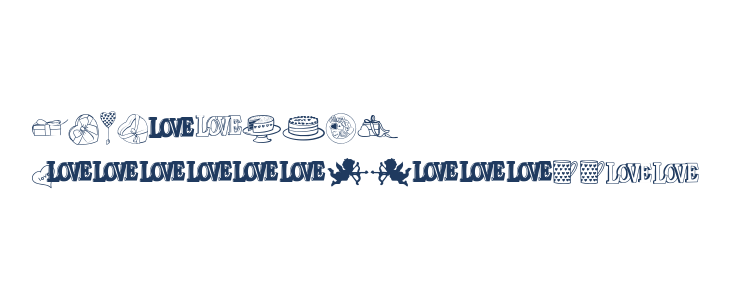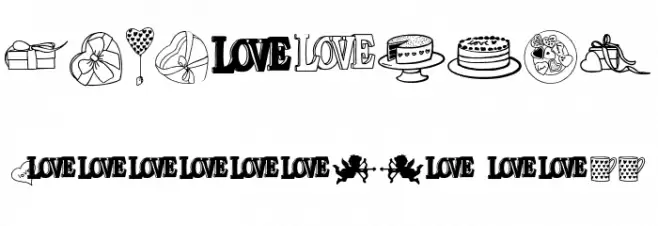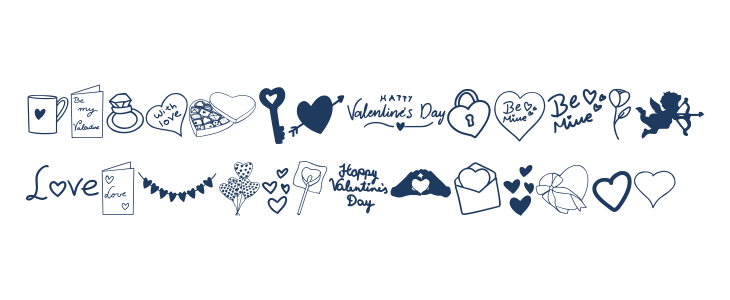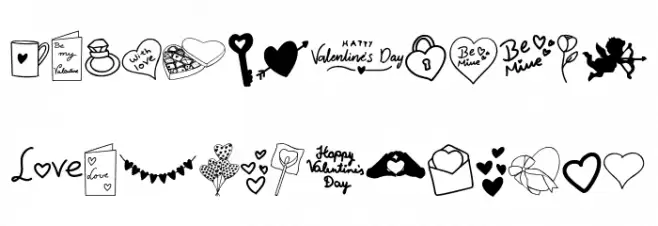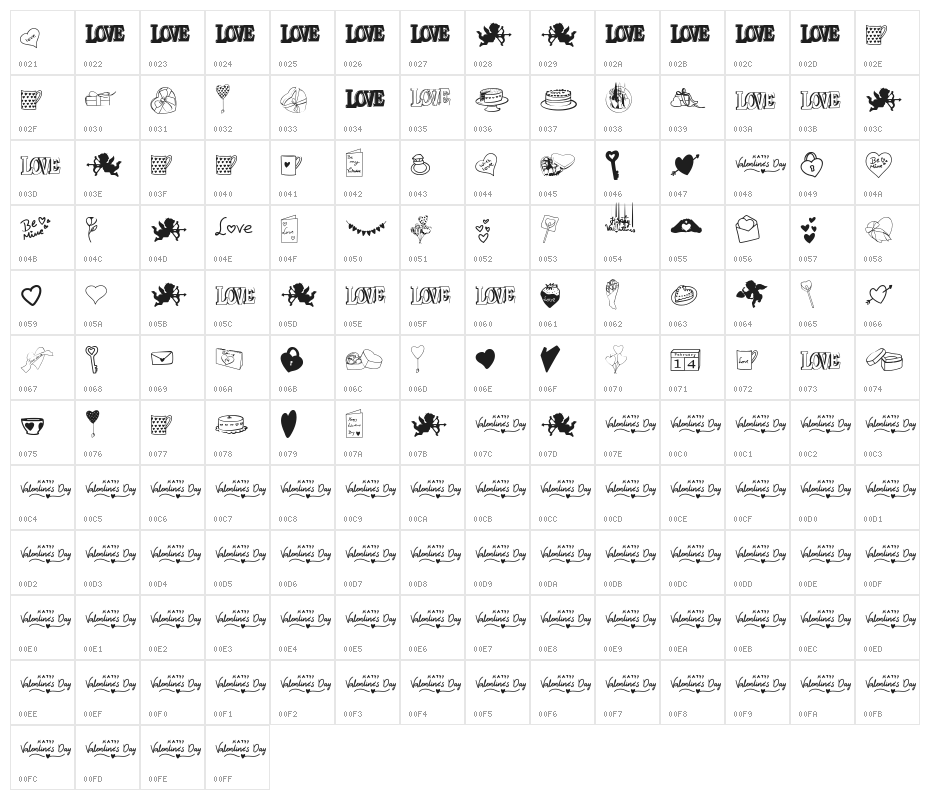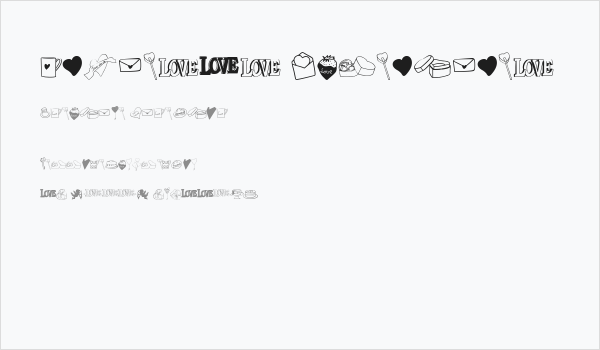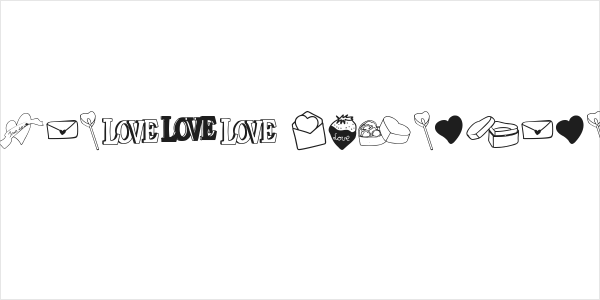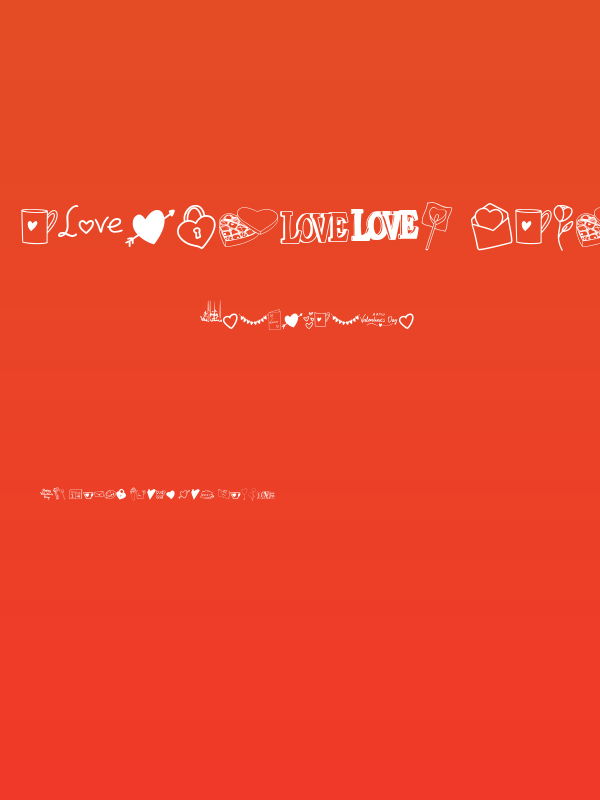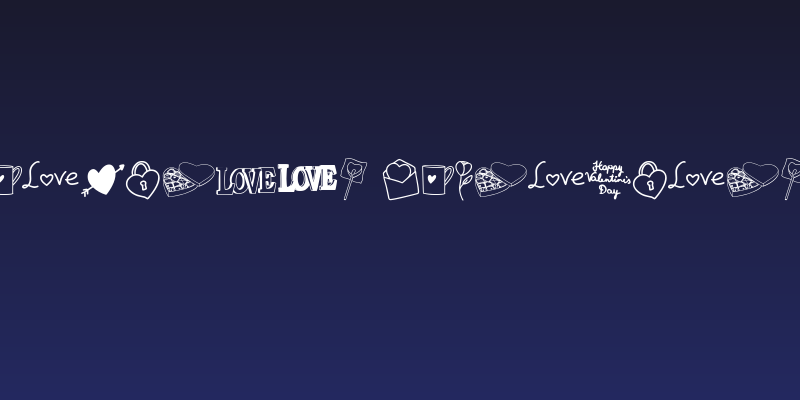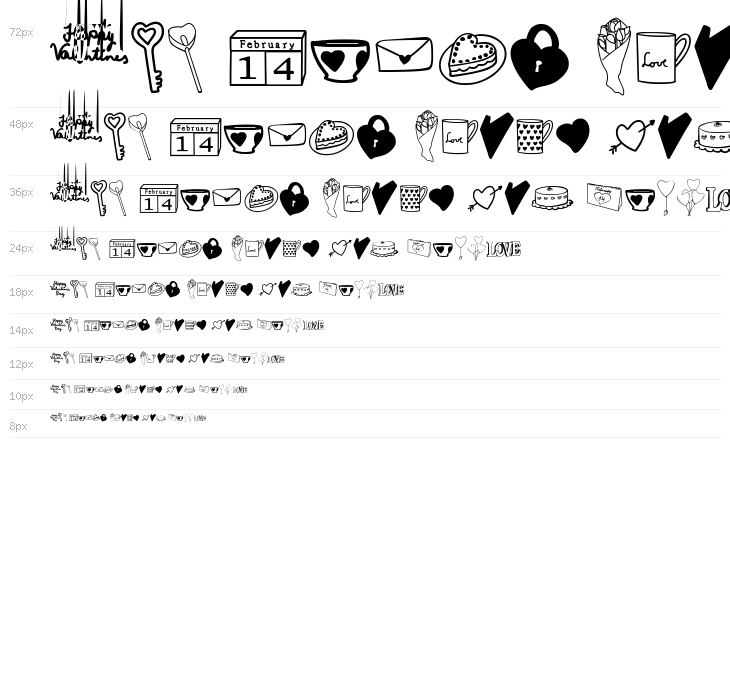
Angie's Valentines Font
Angie's Valentines Description
A decorative dingbat font featuring hand-drawn ValentineΓ’β¬β’s Day themed illustrations such as hearts, gifts, cakes, cupids, keys, and the word 'LOVE' in various styles. The glyphs are playful, whimsical, and outlined, with a mix of filled and unfilled elements, suitable for festive and romantic designs.
| Overall Style | Decorative, Whimsical, Festive |
| Use Case | Headlines, Decorative elements, Themed graphics |
| Proposed Projects | Greeting cards, party invitations, scrapbooking, event flyers, romantic crafts, digital stickers. |